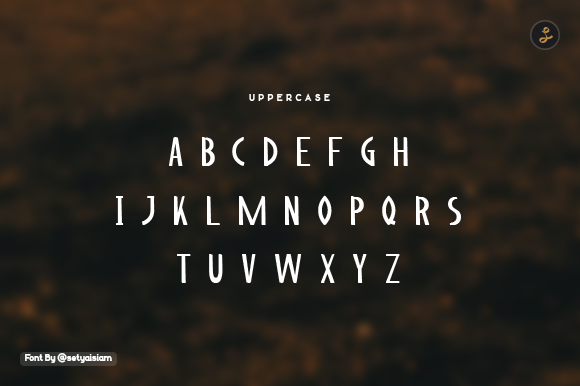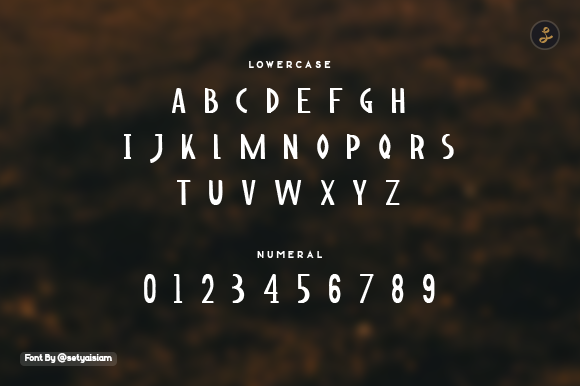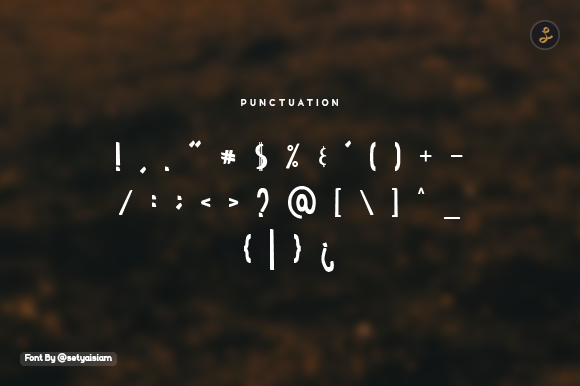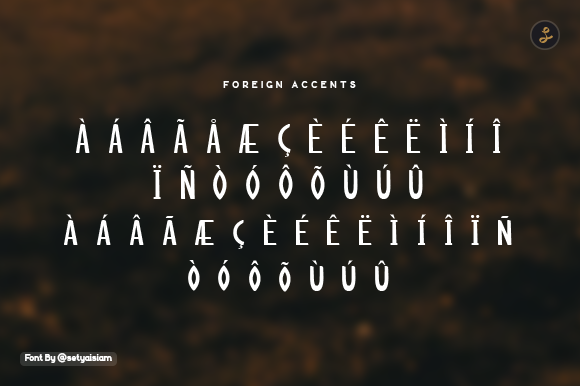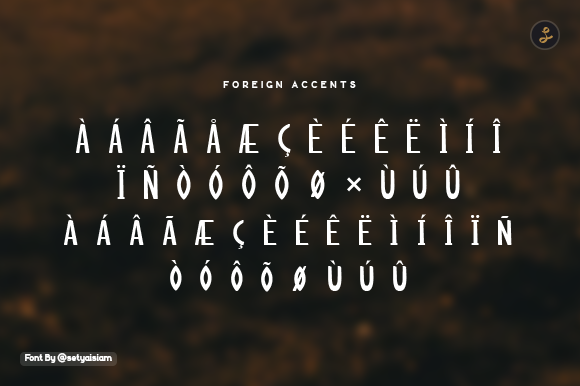
Catalina Font: A Strong Display Font with a Casual Charm
In the world of typography, fonts play a crucial role in conveying the tone and personality of a brand or design. Among the numerous fonts available, Catalina Font stands out as a strong display font that exudes a casual charm, making it wonderfully down-to-earth, readable, and incredibly versatile. In this article, we’ll explore the features and benefits of Catalina Font, and why it’s an excellent choice for designers and crafters.
The Characteristics of Catalina Font
Catalina Font is a display font that boasts a unique blend of strength and elegance. Its casual charm makes it appear approachable and friendly, while its readability ensures that it can be used in a variety of contexts. Whether you’re looking to create a bold headline or a subtle background text, Catalina Font is an excellent choice.
One of the standout features of Catalina Font is its versatility. It can be used on busy backgrounds or as a standalone headline, and it will still manage to grab the attention of your audience. This flexibility makes it an ideal font for designers who want to create visually appealing designs without sacrificing legibility.
The Benefits of Using Catalina Font
So, why should you choose Catalina Font for your next design project? Here are just a few benefits of using this amazing font:
- Readability: Catalina Font is incredibly readable, even at smaller sizes. This makes it perfect for use in body text or captions.
- Versatility: As mentioned earlier, Catalina Font can be used in a variety of contexts, from bold headlines to subtle background text.
- Uniqueness: Catalina Font has a unique charm that sets it apart from other fonts. Its casual elegance makes it perfect for designs that require a touch of personality.
- Easy to Pair: Catalina Font pairs well with a variety of other fonts, making it easy to create harmonious and visually appealing designs.
How to Use Catalina Font in Your Designs
Now that we’ve explored the benefits of Catalina Font, let’s take a look at how you can use it in your designs. Here are a few ideas to get you started:
- Headlines: Use Catalina Font as a headline font to grab the attention of your audience. Its bold and playful nature makes it perfect for titles and headings.
- Logos: Catalina Font can be used to create a unique and memorable logo for your brand. Its casual charm makes it perfect for brands that want to appear friendly and approachable.
- Social Media Graphics: Use Catalina Font to create eye-catching social media graphics that will help your brand stand out from the crowd.
- Web Design: Catalina Font can be used in web design to create visually appealing headings, titles, and captions.
Tips for Pairing Catalina Font with Other Fonts
Pairing fonts can be a daunting task, but with Catalina Font, it’s easy to create harmonious and visually appealing designs. Here are a few tips for pairing Catalina Font with other fonts:
- Pair with Sans-Serifs: Catalina Font pairs well with sans-serif fonts like Arial, Helvetica, or Open Sans.
- Pair with Script Fonts: Catalina Font also pairs well with script fonts like Pacifico or Great Vibes.
- Experiment with Contrasting Fonts: Don’t be afraid to experiment with contrasting fonts to create visually appealing designs.
In conclusion, Catalina Font is a strong display font that offers a unique blend of strength and elegance. Its casual charm makes it wonderfully down-to-earth, readable, and incredibly versatile. Whether you’re a designer or crafter, Catalina Font is an excellent choice for your next project. With its readability, versatility, and uniqueness, it’s the perfect font for creating visually appealing designs that will grab the attention of your audience.